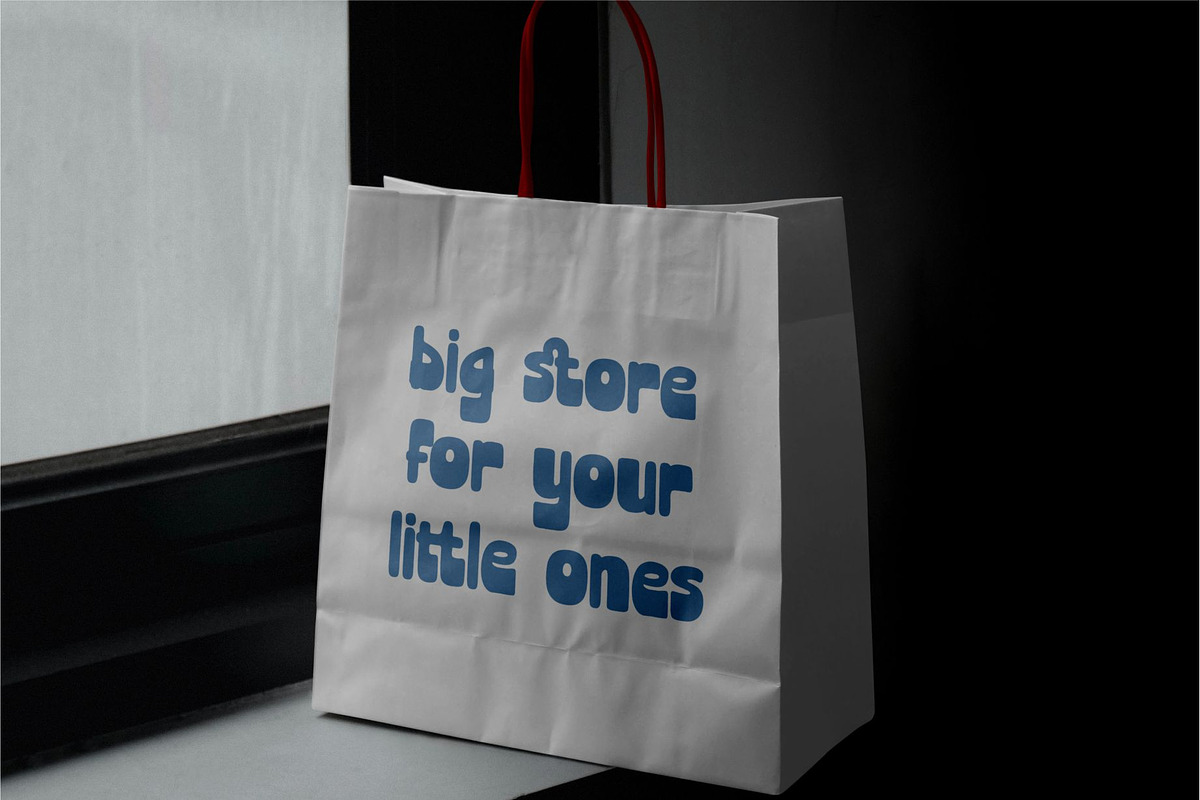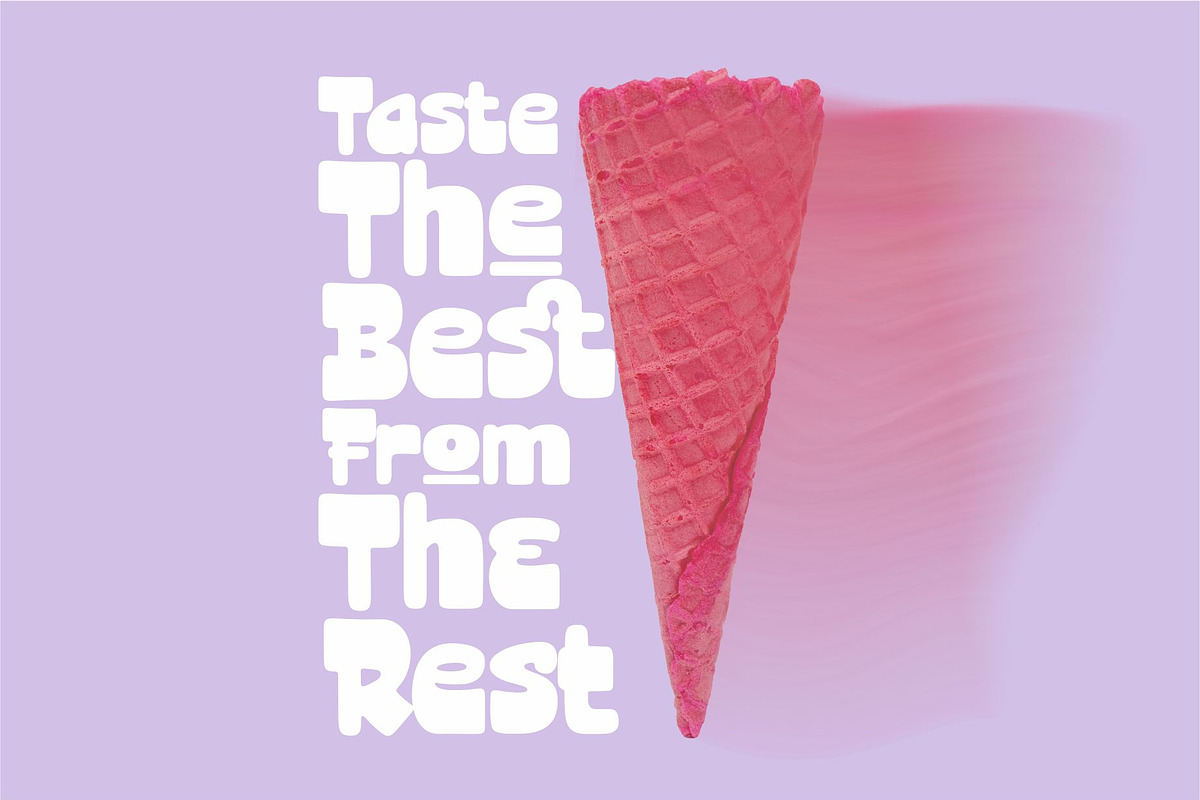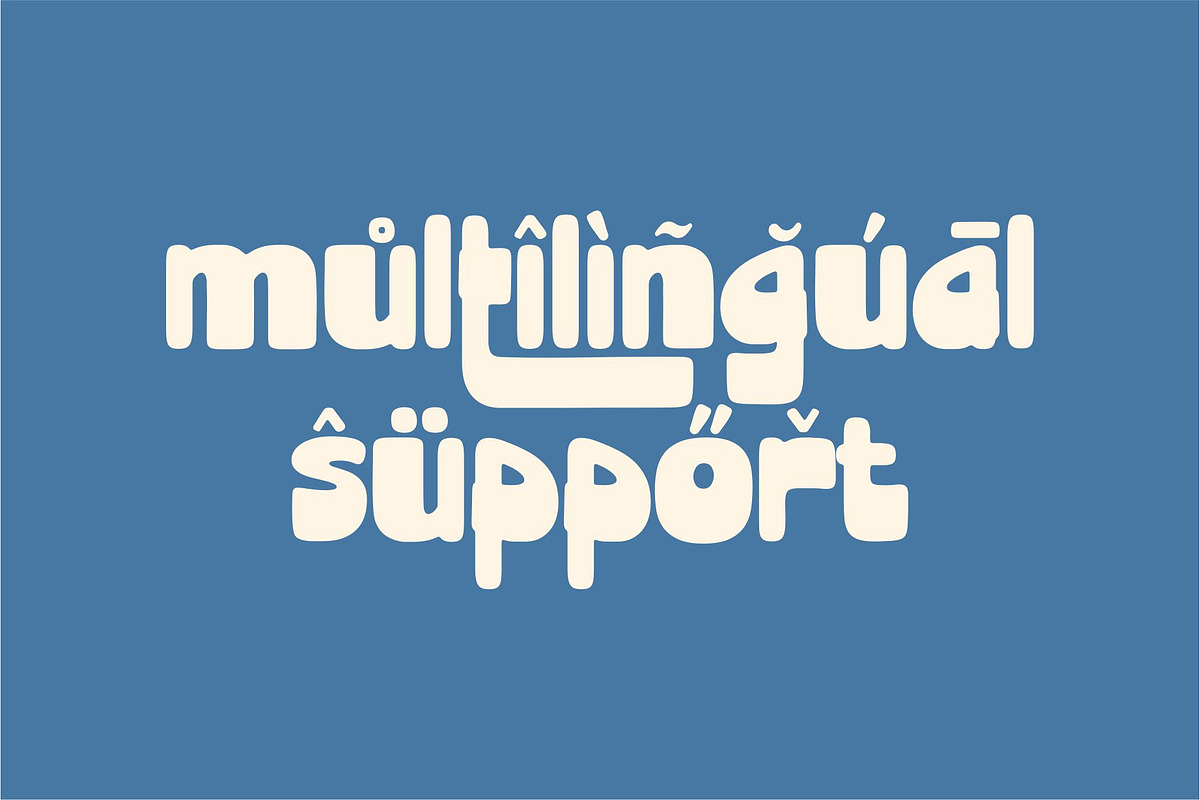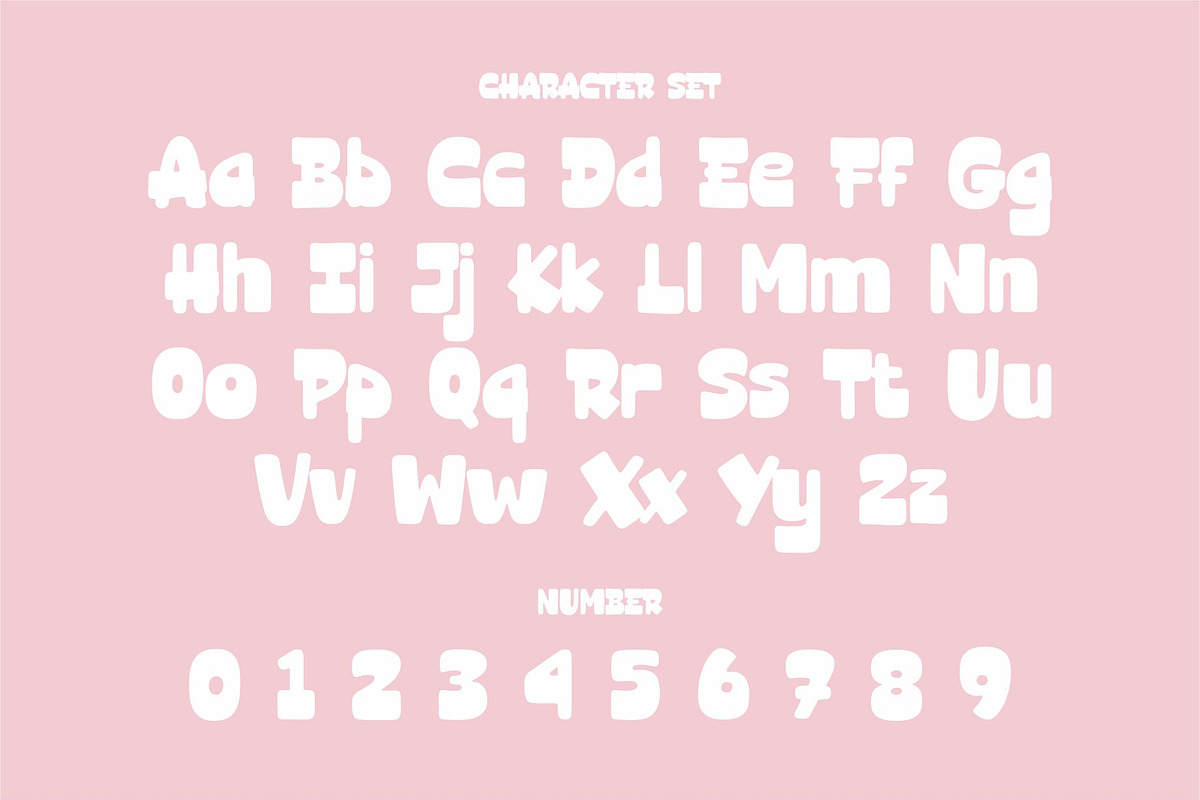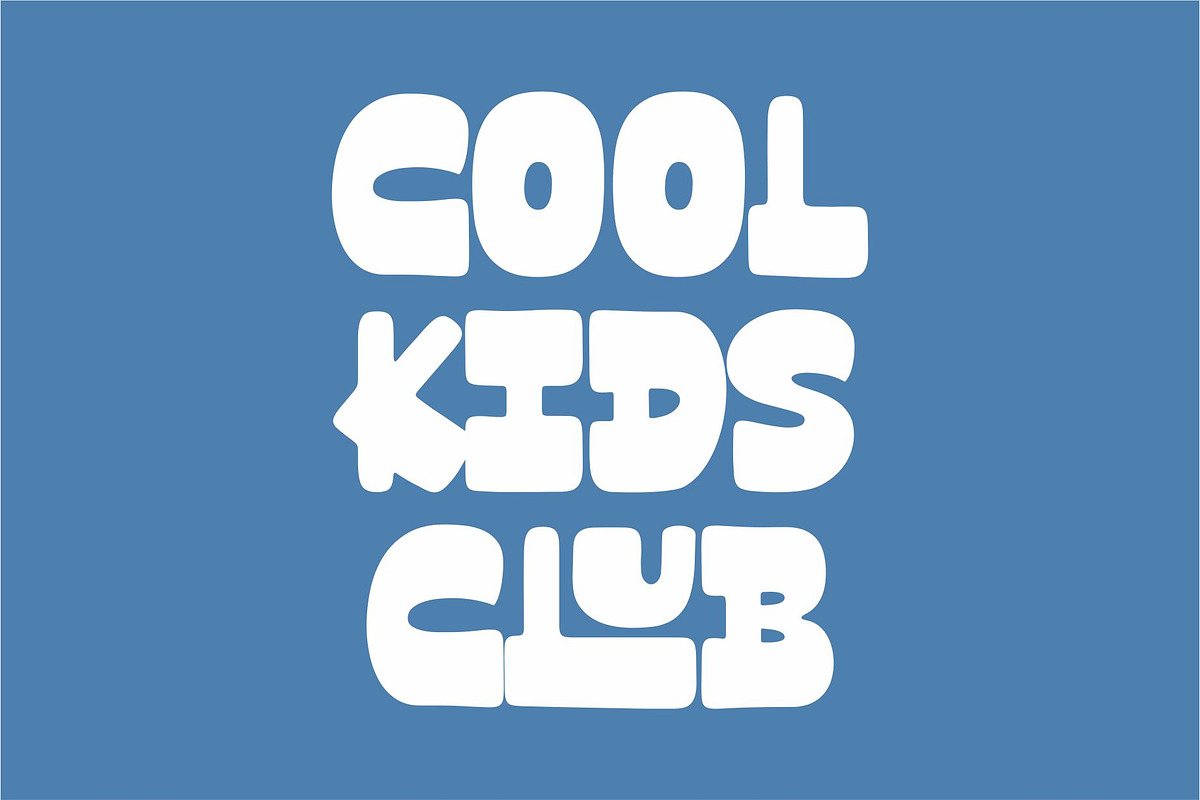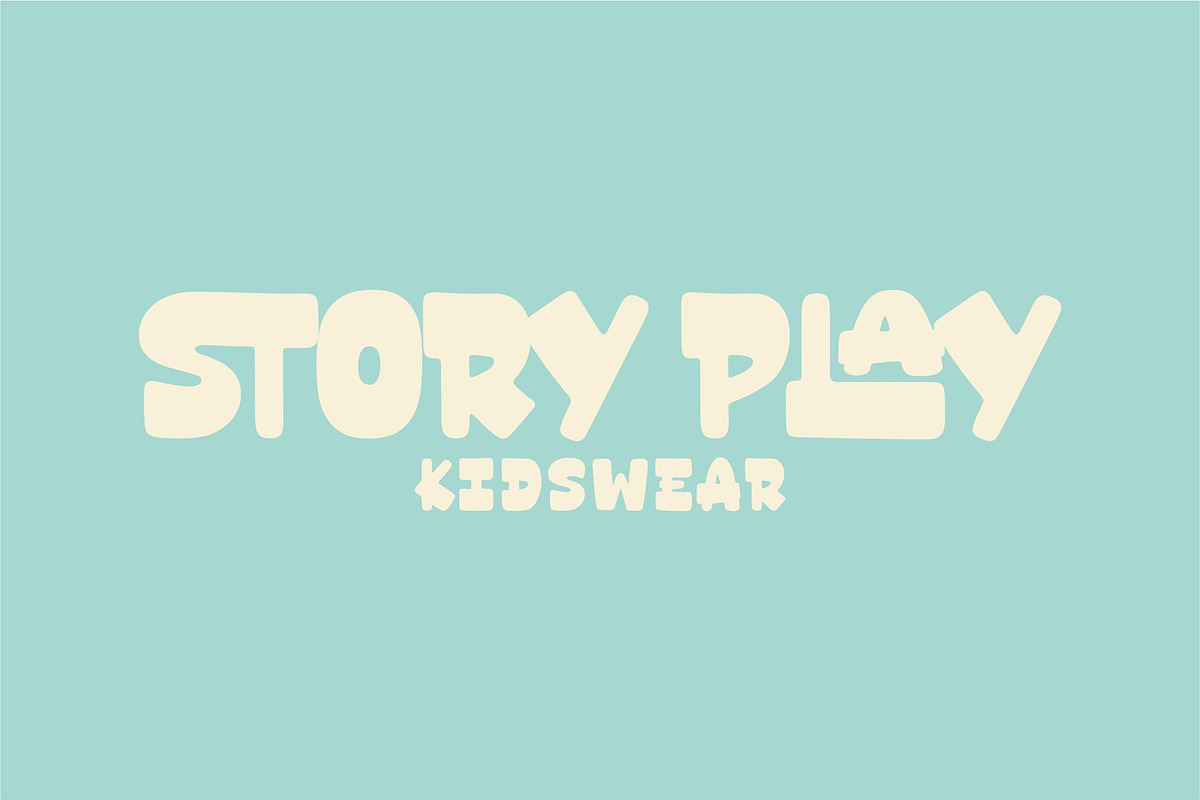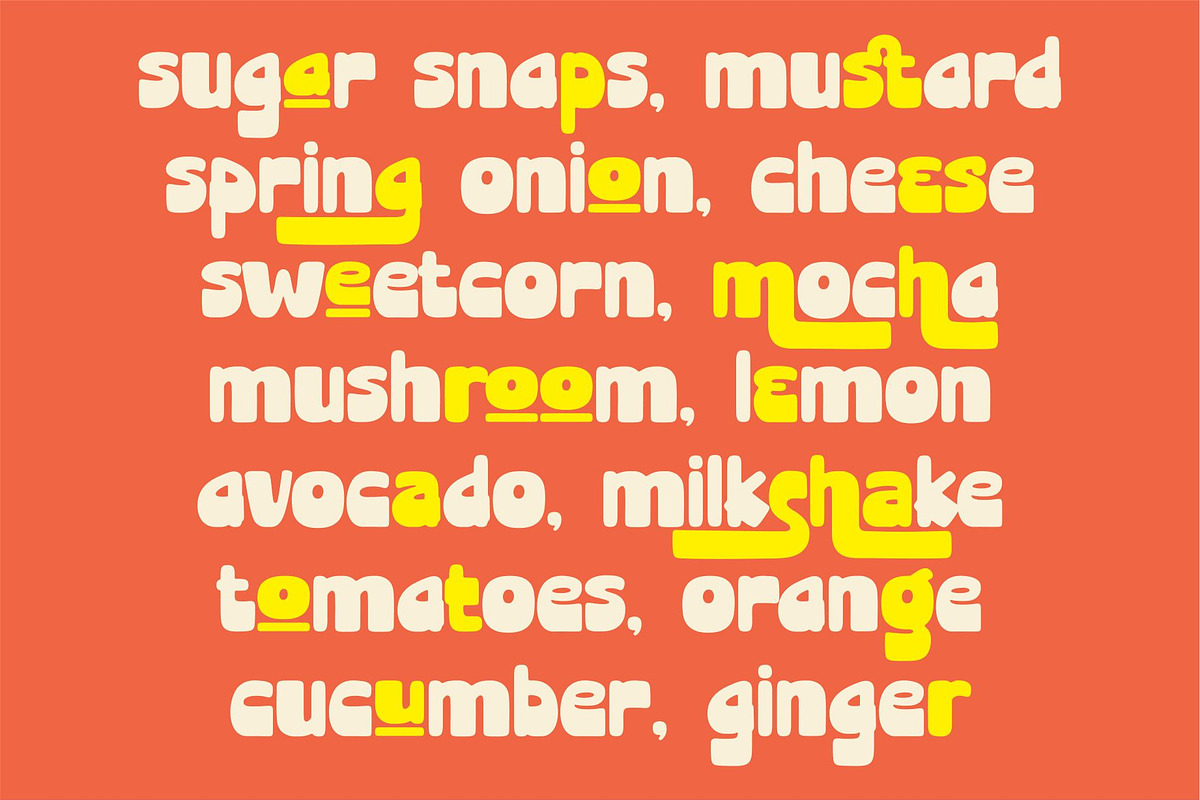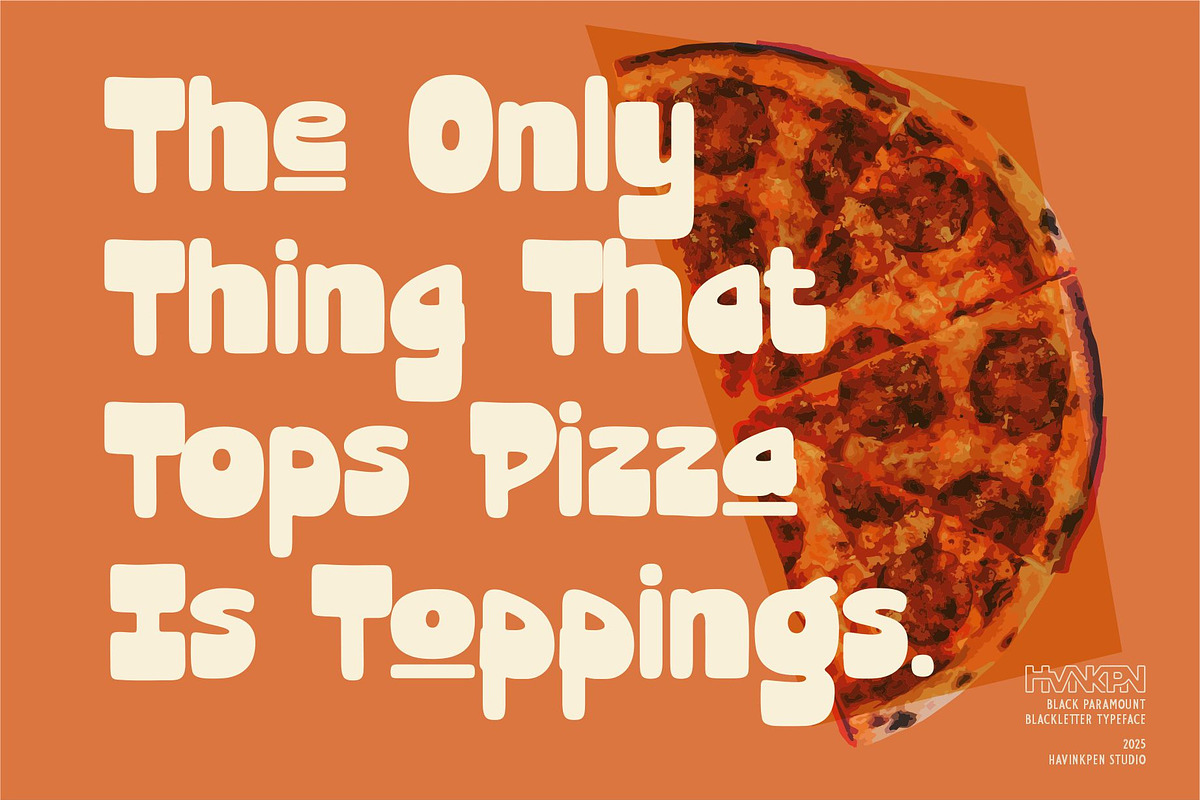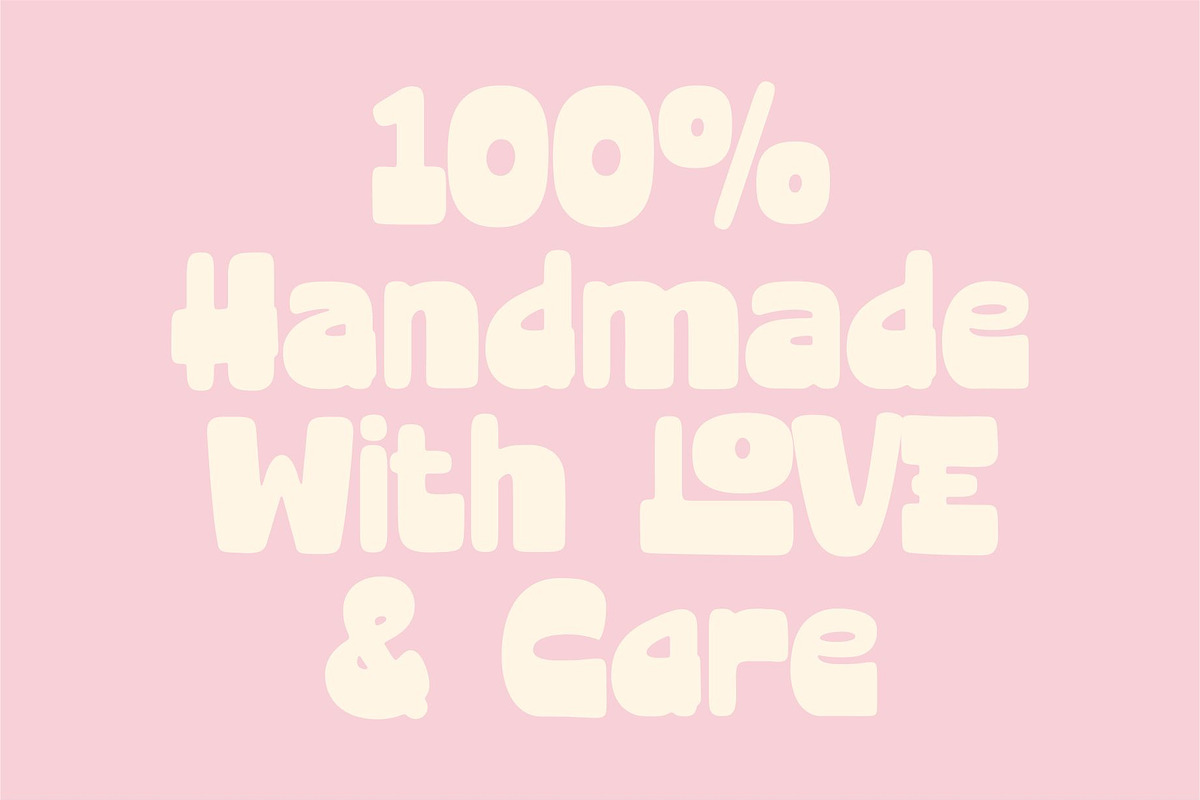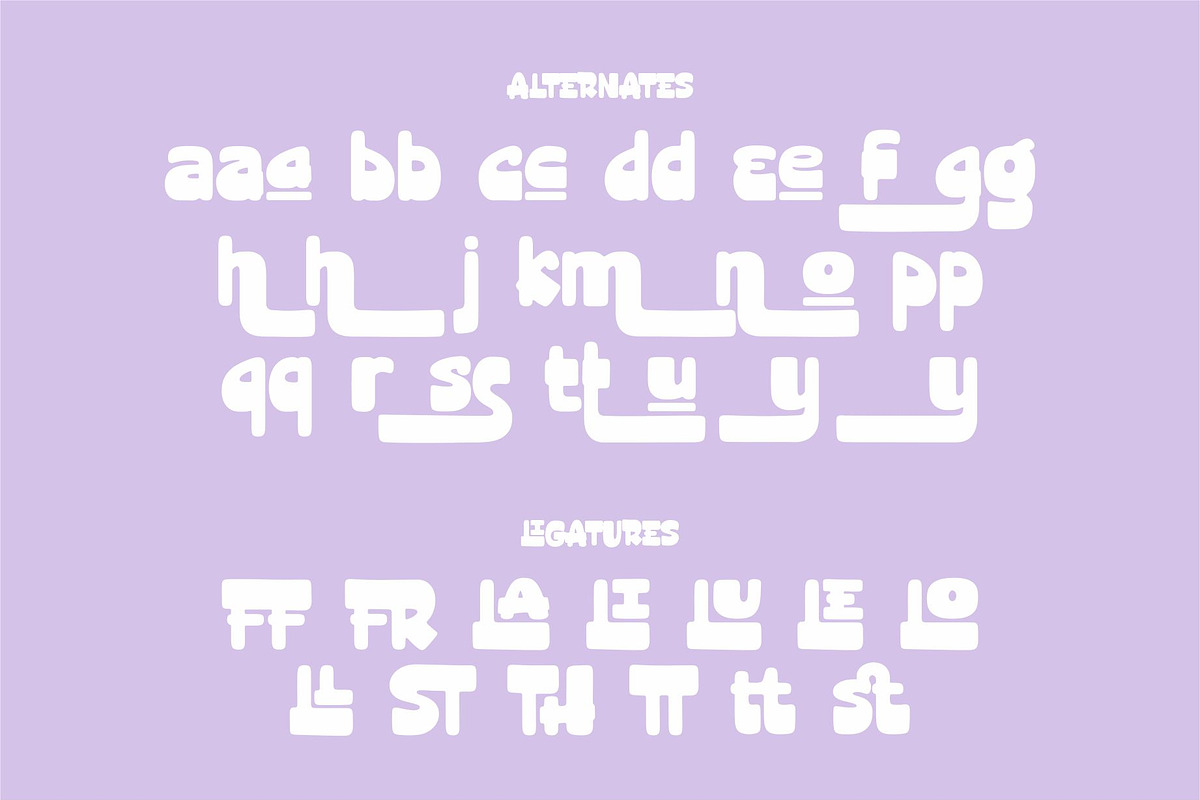
HOLYCRISP – GROOVY PLAYFULL DISPLAY
Holycrisp is a display typeface with a groovy and cheerful style, specially designed to attract attention with bold, round, and expressive letterforms. This typeface is perfect for branding needs for food and beverages, children's books, children's clothing, logos, posters, product packaging, and various visual media that require a fun and enjoyable touch.
The unique characteristics of Holycrisp make it ideal for brands that want to appear friendly, energetic, and impressive. With a retro-modern feel that remains contemporary, this font can provide a strong and easily recognizable visual identity.
Create a cheerful and warm impression in every design with Holycrisp !